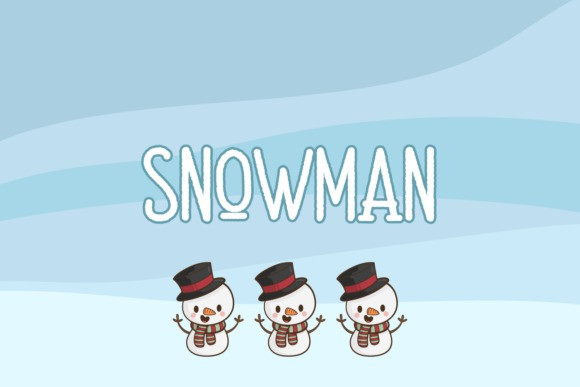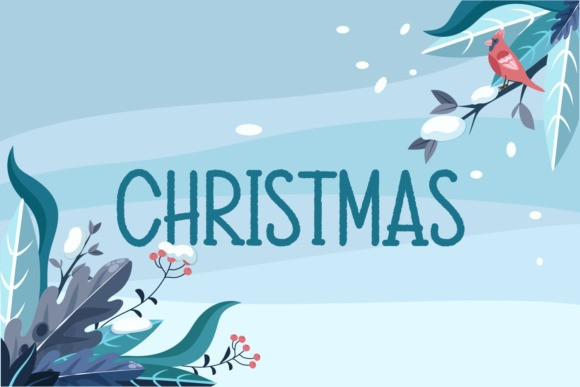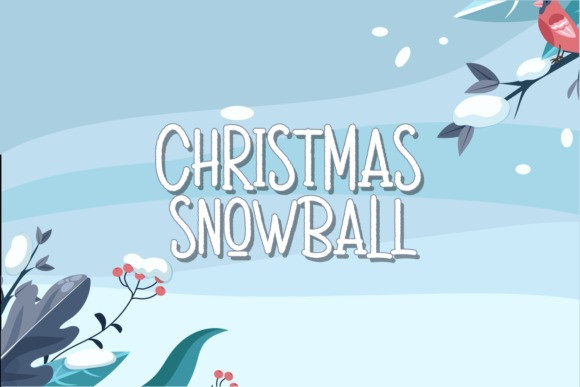
Akick Stone Display Font
Hello …. AKICK STONE is is a very unique and cute font with cute handwriting with a distinctive characteristic that is different from the others, this font is perfect for you to use in any case such as Funny moment, posters, promos, videos, pictures etc.